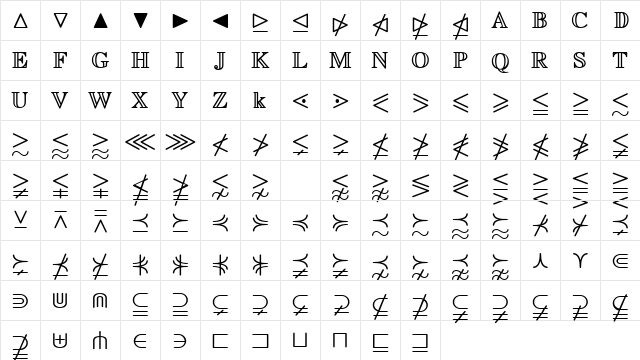
Complete Euclid Math Two Bold glyph index. Displaying only characters natively supported by Euclid Math Two Bold font.
Euclid Math Two is a composed and adaptable typeface that performs quietly and consistently across a wide range of design contexts. Its bold stroke weight gives it real presence on the page.